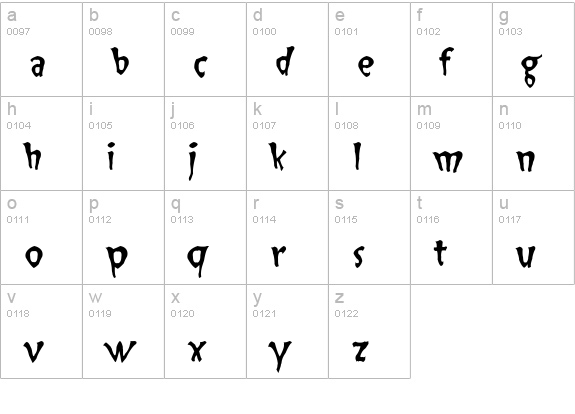
Slap Happy Font Details
Introducing Slap Happy font, a whimsical and playful typeface that will bring a touch of joy and laughter to your designs. With its lively and energetic letterforms, this font captures the essence of carefree spontaneity and boundless creativity. Slap Happy font is perfect for a wide range of projects, from children's books and playful brand identities to party invitations and social media graphics. Its unique and dynamic characters will add a delightful and vibrant touch to any design, instantly drawing the eye and captivating the viewer. But what makes Slap Happy font even more special is that it is available free of charge! Yes, you heard it right. This incredible font can be freely downloaded at FontsMarket.com, ensuring that everyone can have access to its charm and versatility. Whether you're a professional designer looking to add a touch of whimsy to your work or an aspiring creative exploring your passion, Slap Happy font is here to inspire and uplift. Its bold and animated letterforms will bring a smile to your face and inject a sense of playfulness into your designs. So don't miss out on the opportunity to enhance your projects with the captivating and free Slap Happy font. Download it now from FontsMarket.com and let your creativity run wild with this delightful and enchanting typeface.